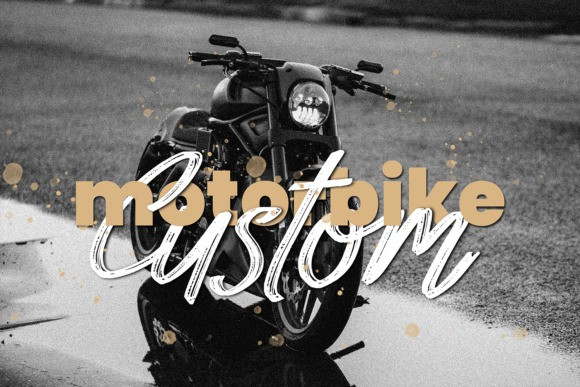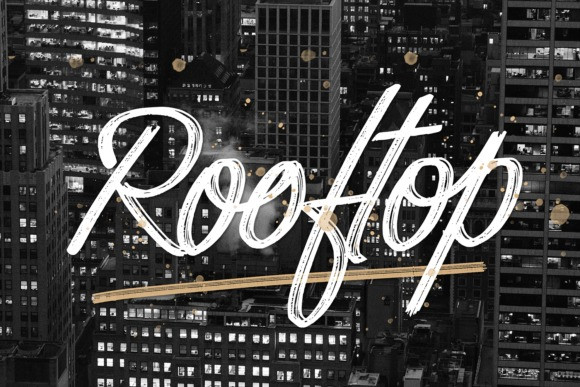
Blastimo Sans & Script Font
Introducing Blastimo Font, our latest product in August 2019. Blastimo consists of sans and scripts, making it easy for you to design with good letter combinations without having to waste time choosing fonts again, Blastimo is suitable for summer vacation-themed design needs, design businesses, and other contemporary design needs.